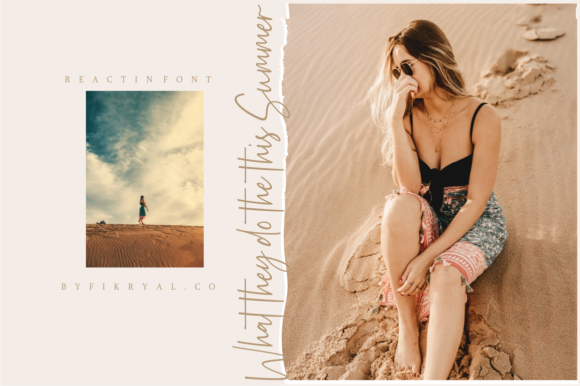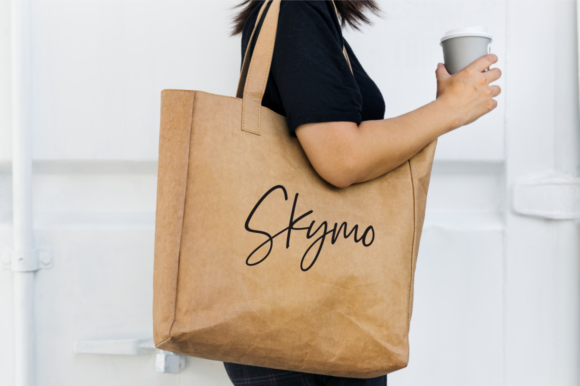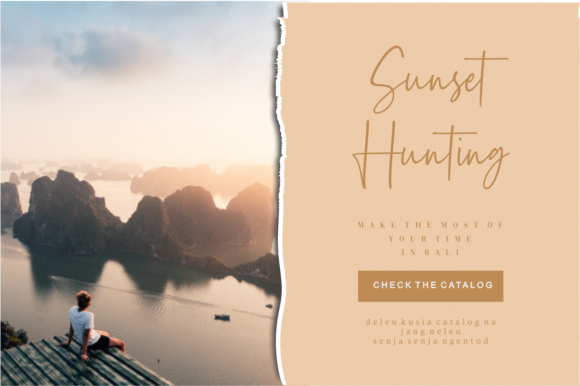
Introduction to Reactin Font
As a designer, have you ever found yourself stuck in a creative rut, yearning for that perfect element to elevate your project to the next level? It’s a moment we’ve all been there – staring at a blank canvas, searching for the missing piece that will breathe life into our vision. And then, it happens – you stumble upon a design resource that changes everything. For me, that resource was the Reactin Font.
With its modern authenticity and personal vibe, the Reactin Font is more than just a font – it’s a game-changer. Its high quality, handwritten style adds a touch of sophistication to any design project, making it a valuable asset for creatives. Whether you’re working on a personal or professional project, the Reactin Font is sure to inspire and captivate your audience.
Key Features of Reactin Font
- High-quality design resource with a transparent background, ideal for creative projects
- Professional-grade font with precise details, suitable for a wide range of design applications
- Includes a comprehensive character set, covering a wide range of languages and characters
- Designed to be highly legible, making it perfect for body text, headings, and titles
- Available in a single weight, providing a clean and minimalist aesthetic
Honest Review: Reactin Font
I recently came across the Reactin Font, and I must say it’s a great addition to any designer’s toolkit. The transparent background makes it perfect for creative projects that require a touch of elegance.
Here are some things that work well: ✨ High quality design that’s sure to impress, ✨ Free download, making it a great resource for designers on a budget, and ✨ Versatile font that can be used for a wide range of creative projects.
As with any design resource, there are some limitations to consider: ⚠️ Limited font styles, ⚠️ Not suitable for use in certain design software, and ⚠️ May not be compatible with all operating systems.
Overall, I’m quite impressed with the Reactin Font. It’s a high-quality design resource that’s perfect for designers who want to add a touch of sophistication to their creative projects. The free download is a definite bonus, making it a great addition to any designer’s toolkit.
Tips for Getting the Most Out of Reactin Font
When using Reactin Font, consider using it with a transparent background to create a clean and modern look. You can also experiment with different font sizes and styles to find the perfect fit for your project.
Reactin Font is a versatile design resource that can be used for a wide range of creative projects, from branding and marketing materials to digital products and print designs. Its high-quality design makes it an ideal choice for designers who want to add a touch of sophistication to their projects.